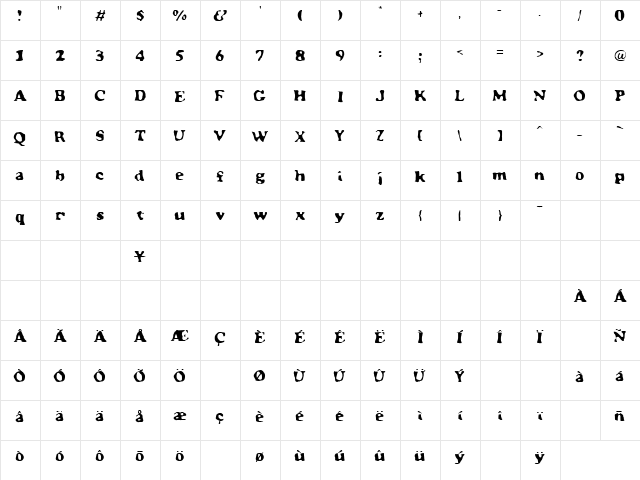
Glooper Regular
Design Context for Glooper Typeface
Glooper is a composed and adaptable typeface that performs quietly and consistently across a wide range of design contexts.